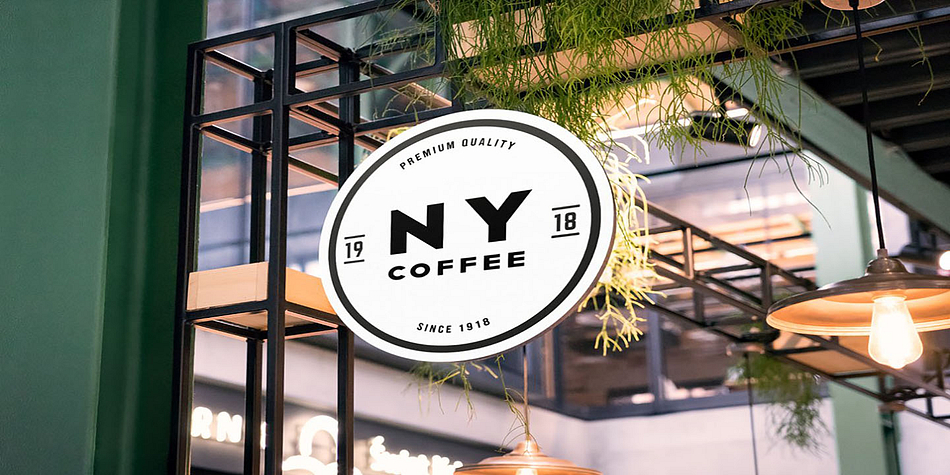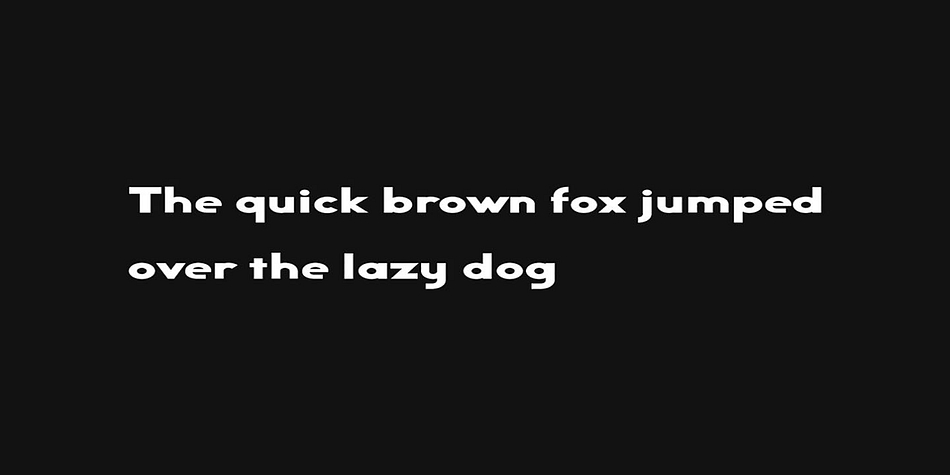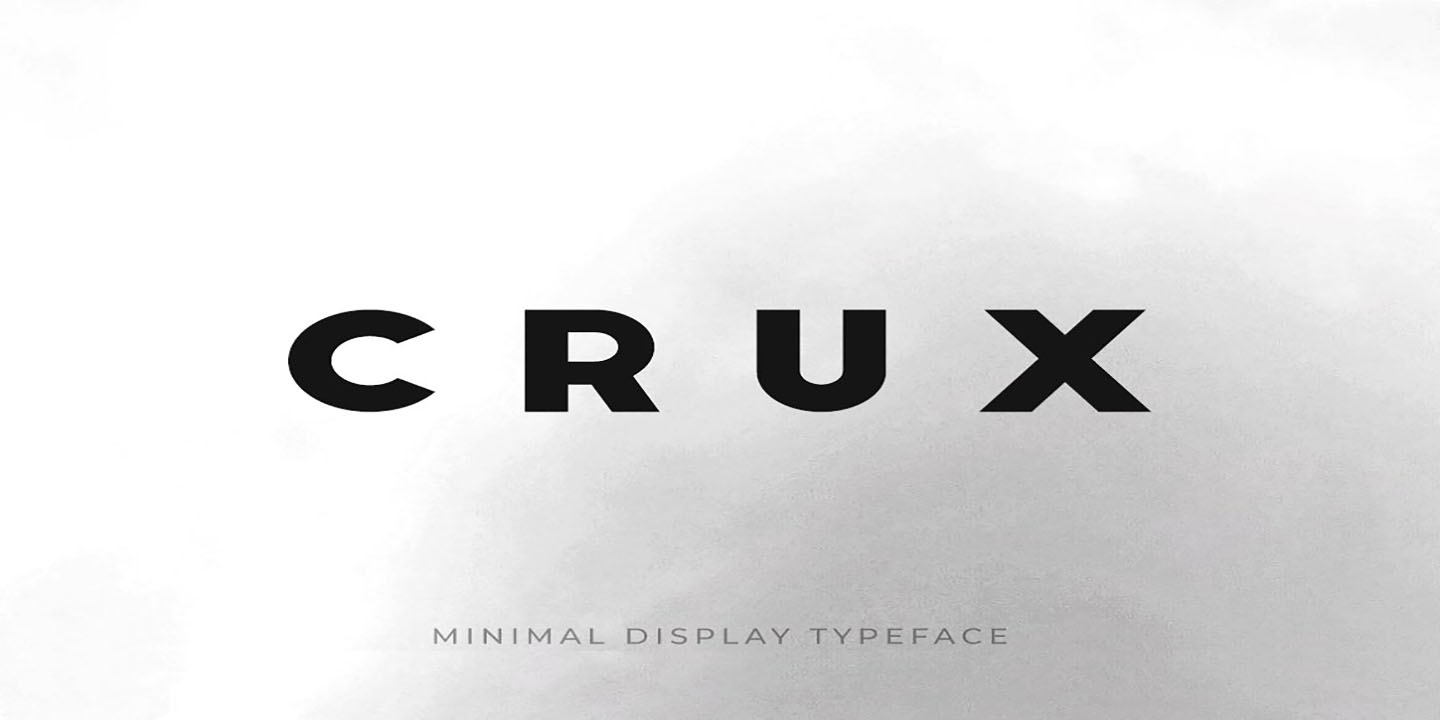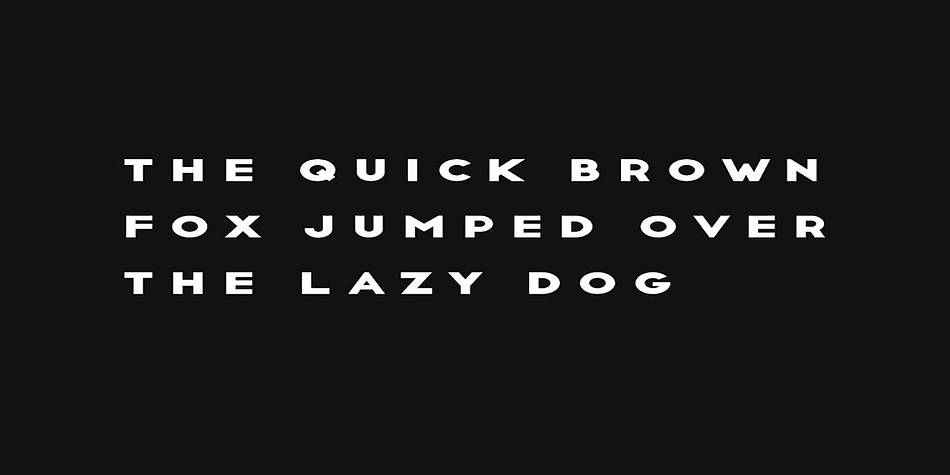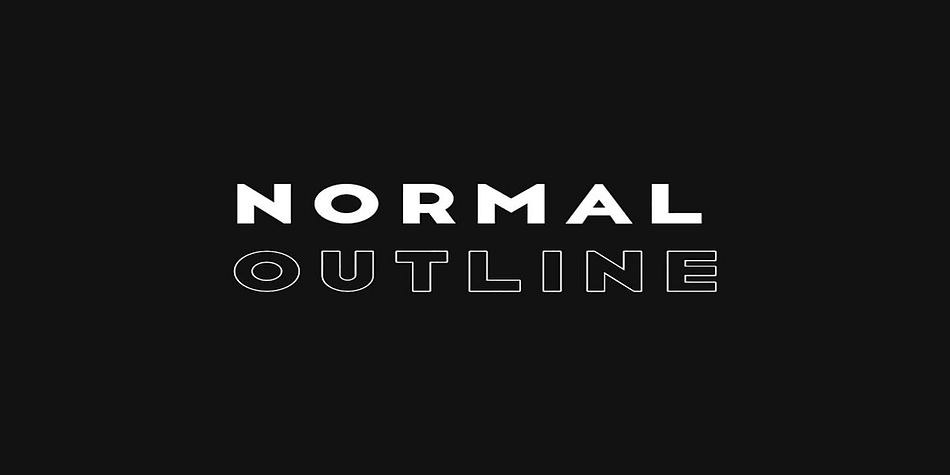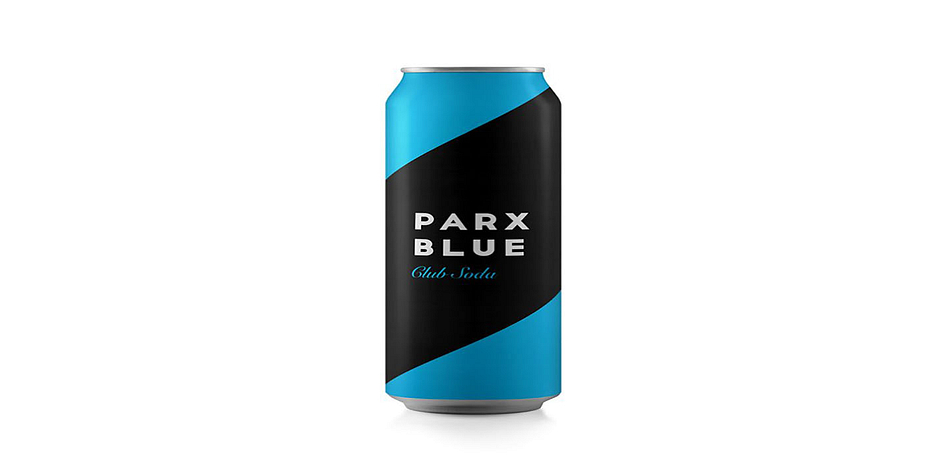
CRUX
CRUX is a display sans and sans serif font family. This typeface has two styles and was published by Fontastica.
CRUX is a modern typeface for minimalist headlines, big text, branding, logotypes & display usage. This font is perfect for creating outstanding logos, promotional content and marketing graphics that can really grab attention from your visitors. Please see the examples shown above to get an idea about the capability of this typeface.